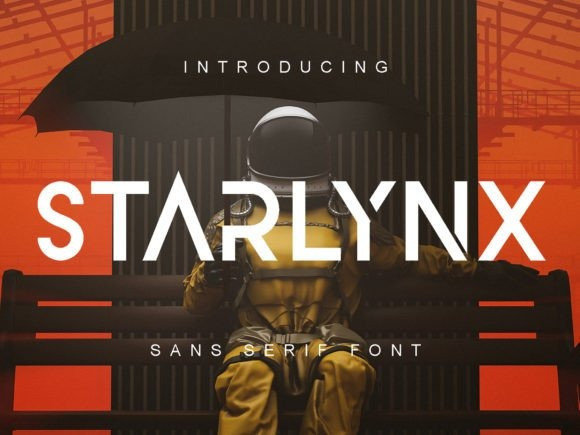
Starlynx Font
Starlynx Font, a simple and unique sans serif font.
So perfect for you who needs a typeface for logo designs, magazine, social media, brochure, and many more.